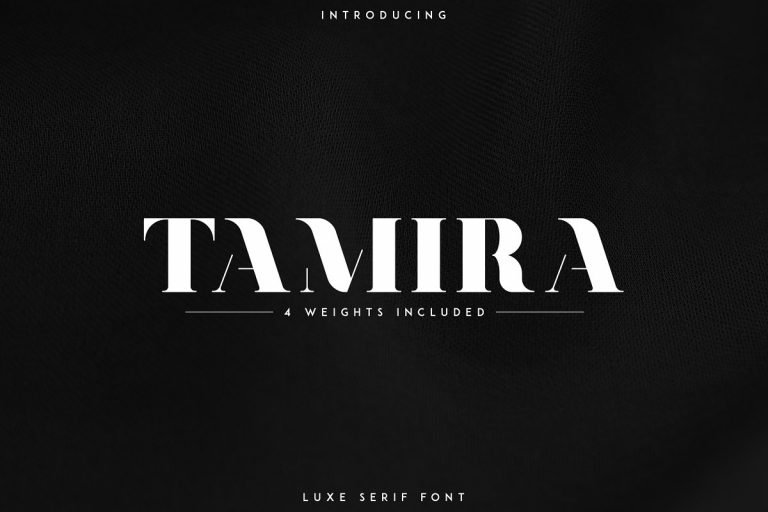
Tamira Typeface
A high contrast serif typefamily. This is a serif font and Logo Template. It will fit all your design projects. Introducing Tamira Font. Tamira Typeface is elegant, bold typeface with 4 weight and multilingual support. It’s a very versatile font that works great in large and small sizes. Tamira is perfect for branding projects, home-ware designs, product packaging, magazine headers – or simply as a stylish text overlay to any background image.